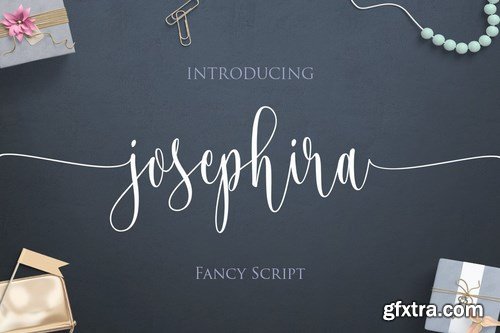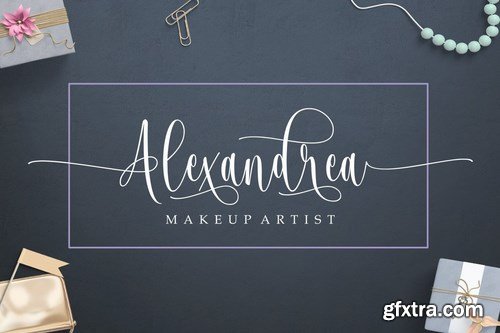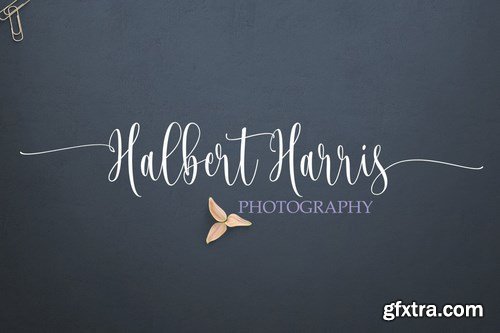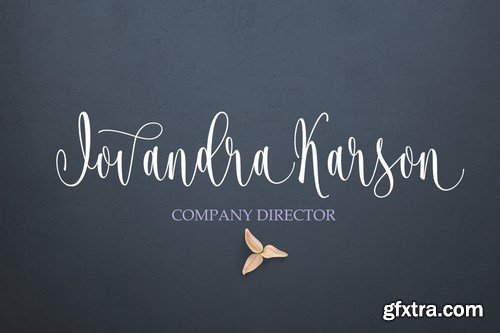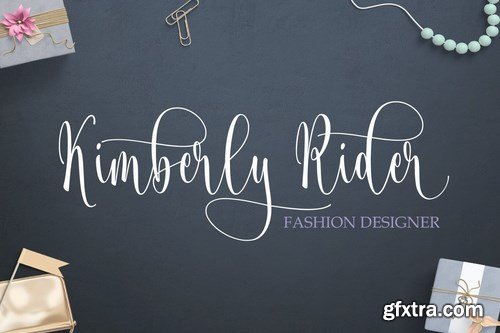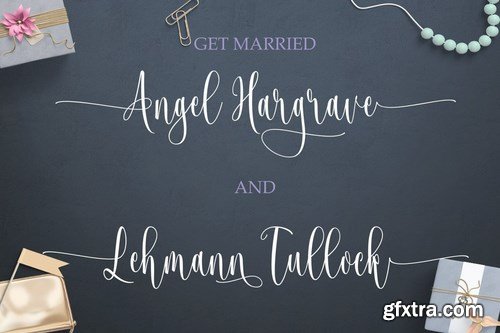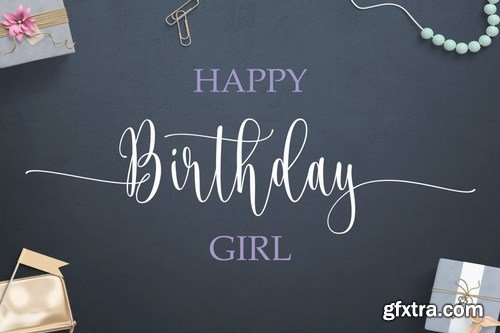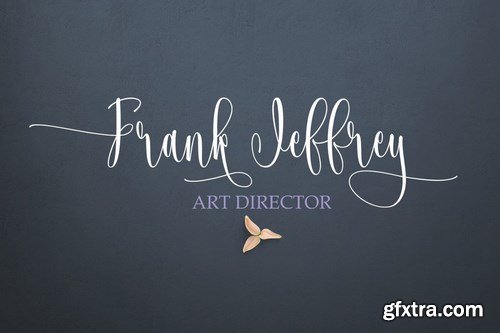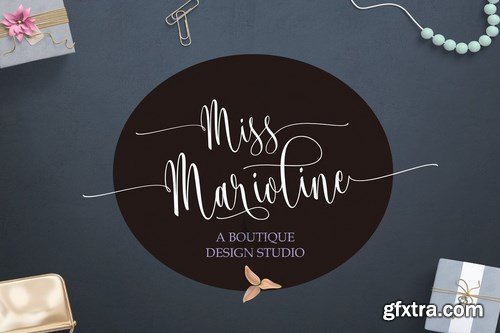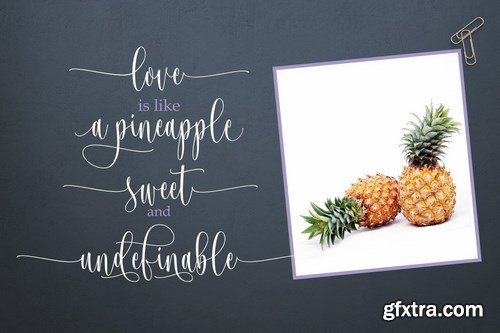
This is perfect for branding, wedding invitations ,cards, etc.
Josephira Fancy Script Font includes a complete set of upper and lower case letters, numbers, various punctuation marks and ligature. All lowercase letters include beginning and ending swash.